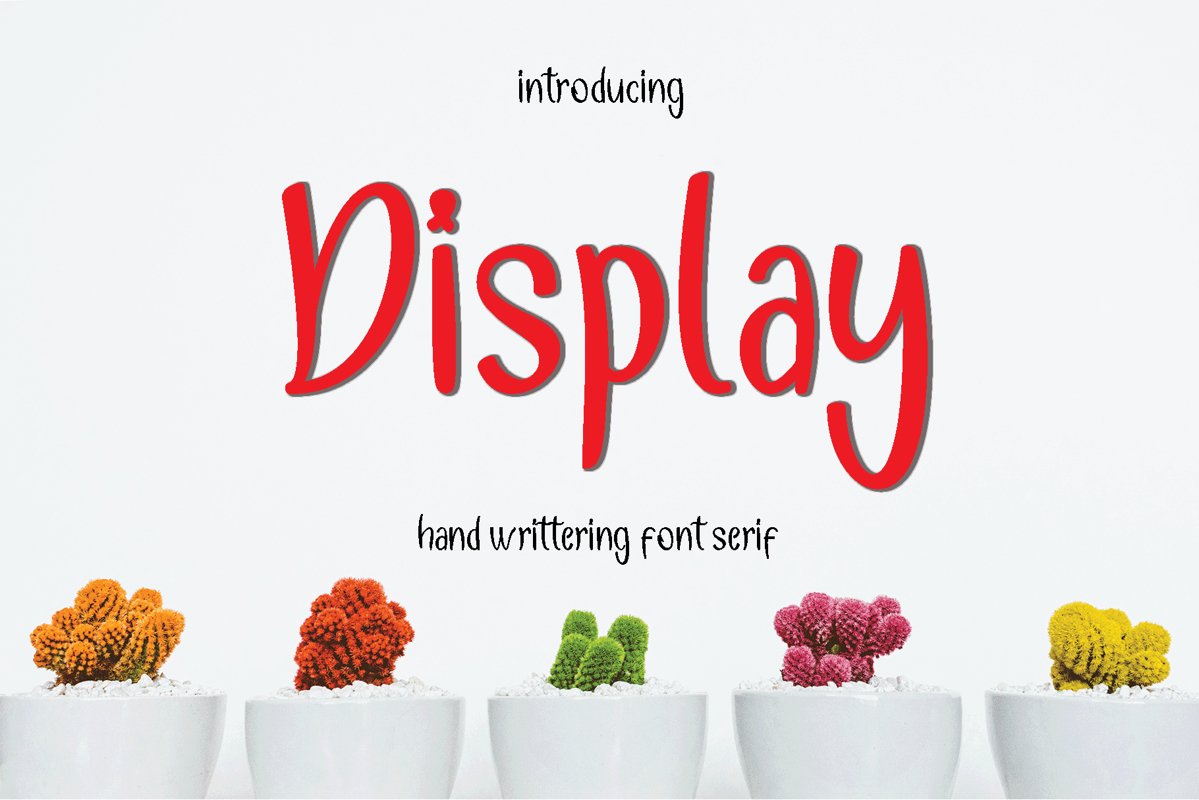
This font is perfect for quotes, shirt designs, websites, branding, children's designs, blogs, logos, invitations and more!
Most accent characters included.